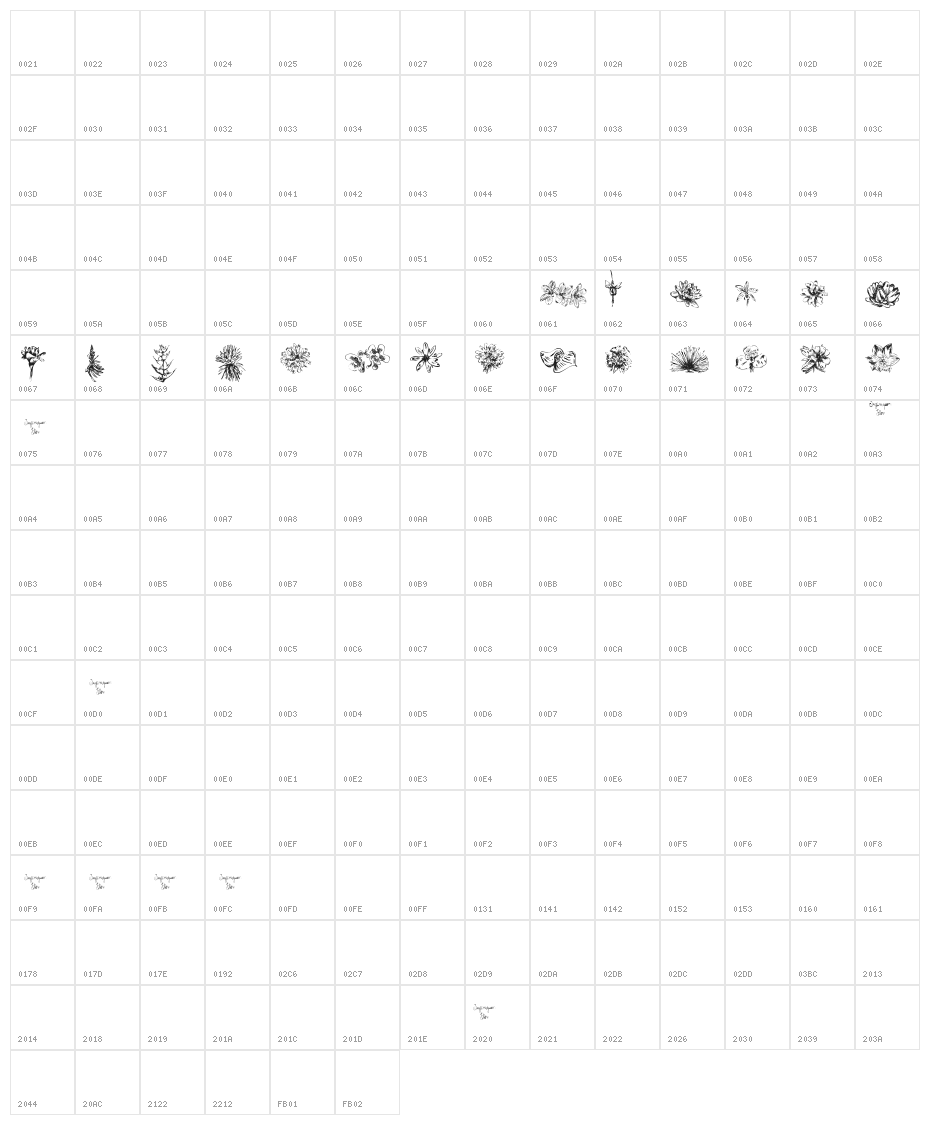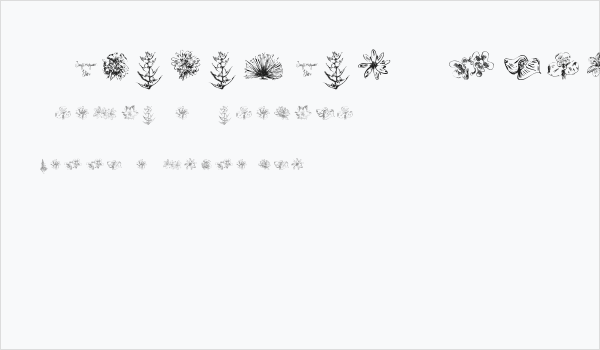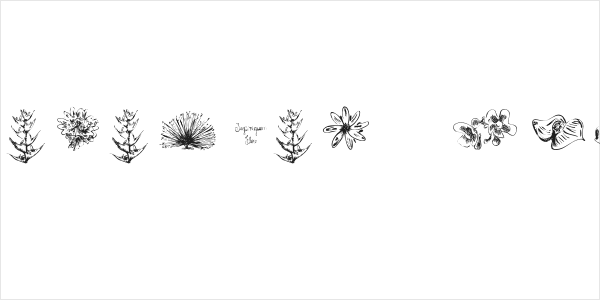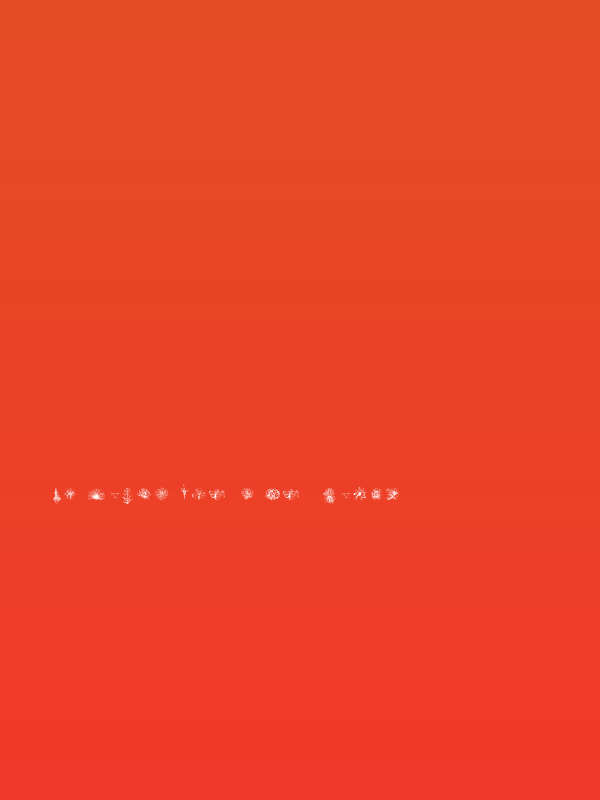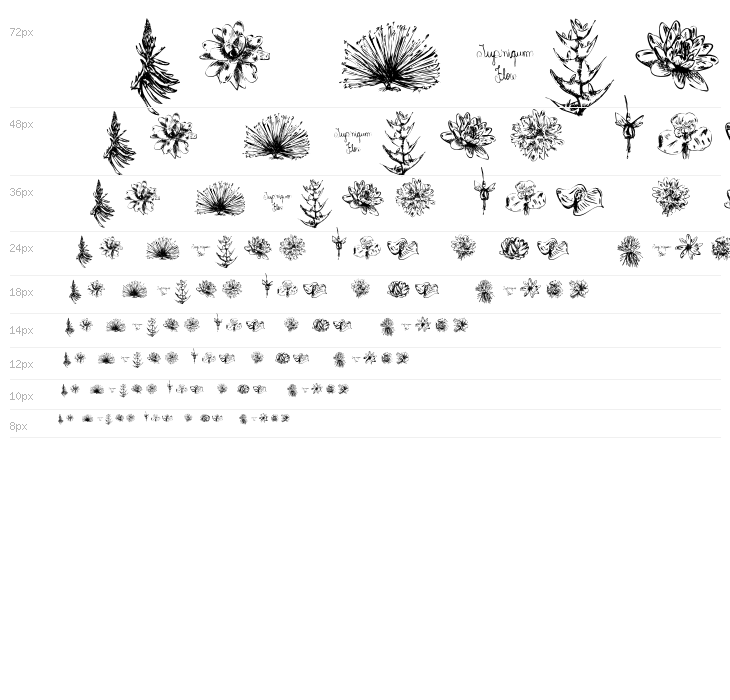
Tupiniquim-Flora Font
Tupiniquim-Flora Description
This is not a valid font. The image displays a series of floral illustrations rather than a traditional typeface. Each character is represented by a unique botanical drawing, showcasing intricate details and artistic flair. These illustrations vary in complexity and style, capturing the essence of different flowers and plants. The overall presentation is more akin to an art piece than a functional font, making it unsuitable for standard text applications.
| Use Case | Decorative elements, art projects. |
| Proposed Projects | Art projects, botanical illustrations, decorative elements in design. |